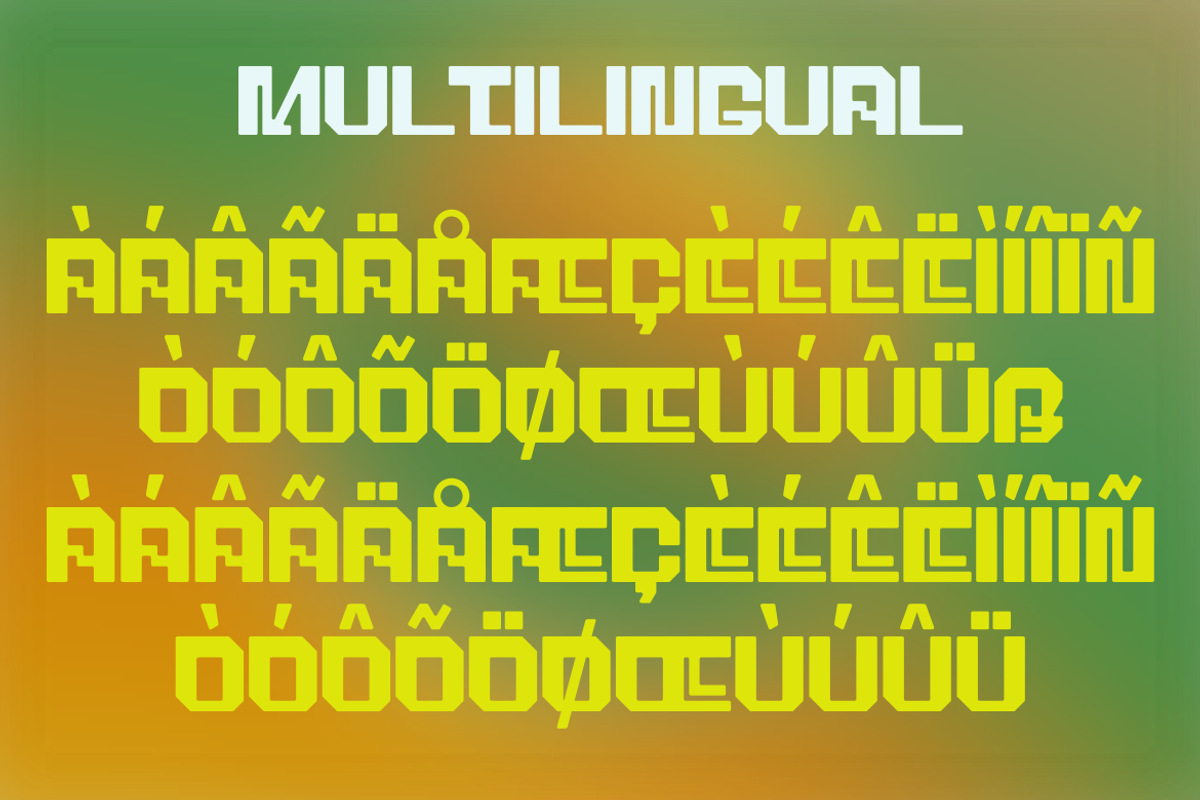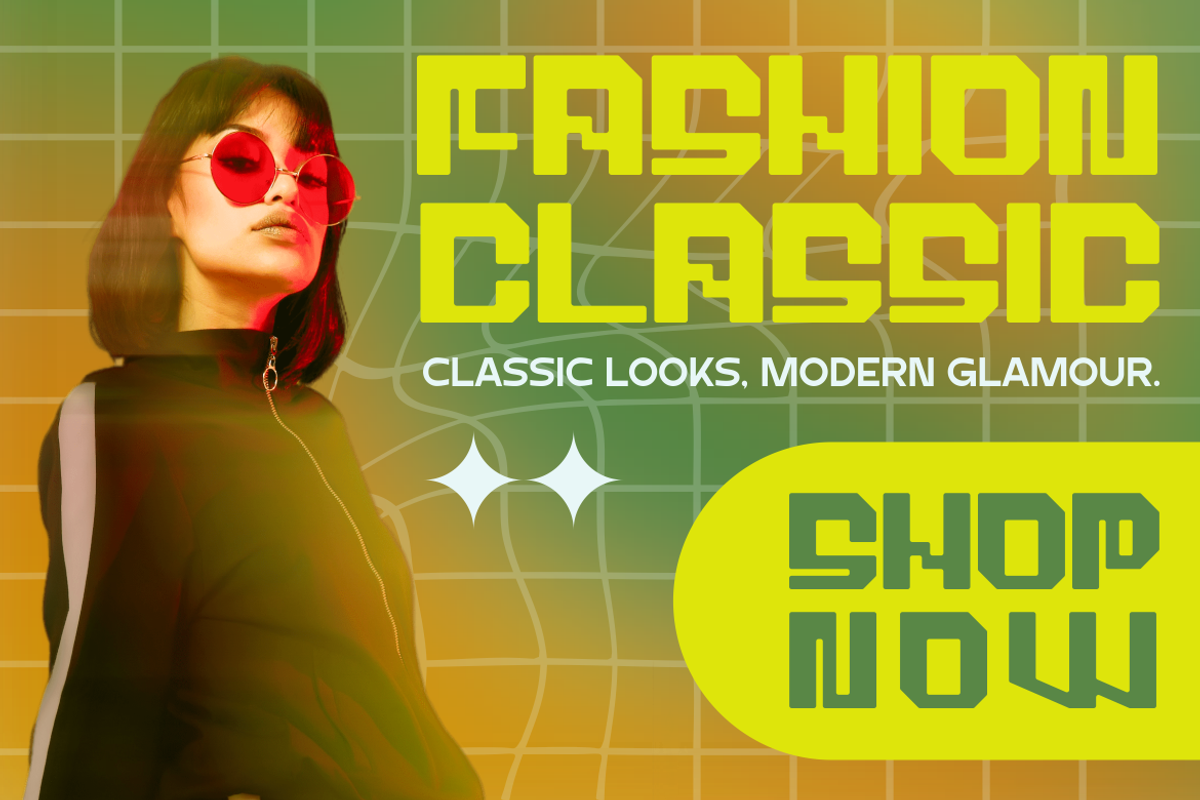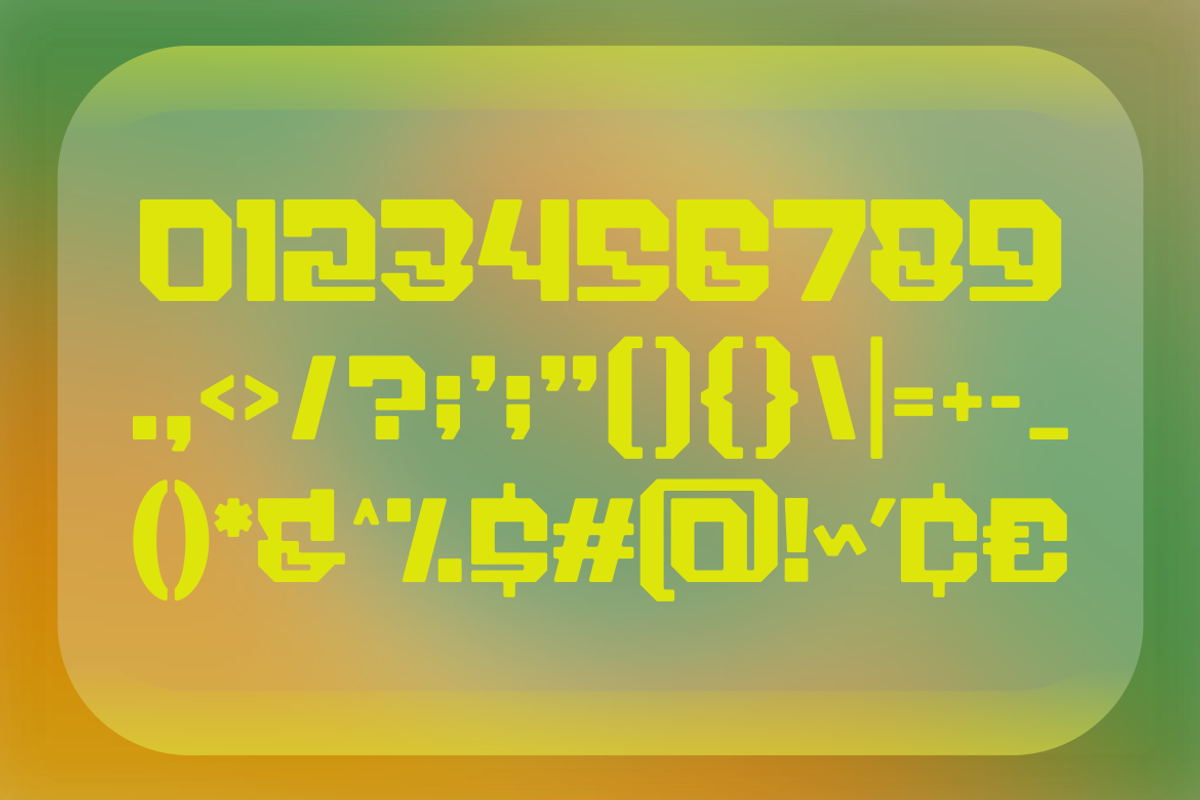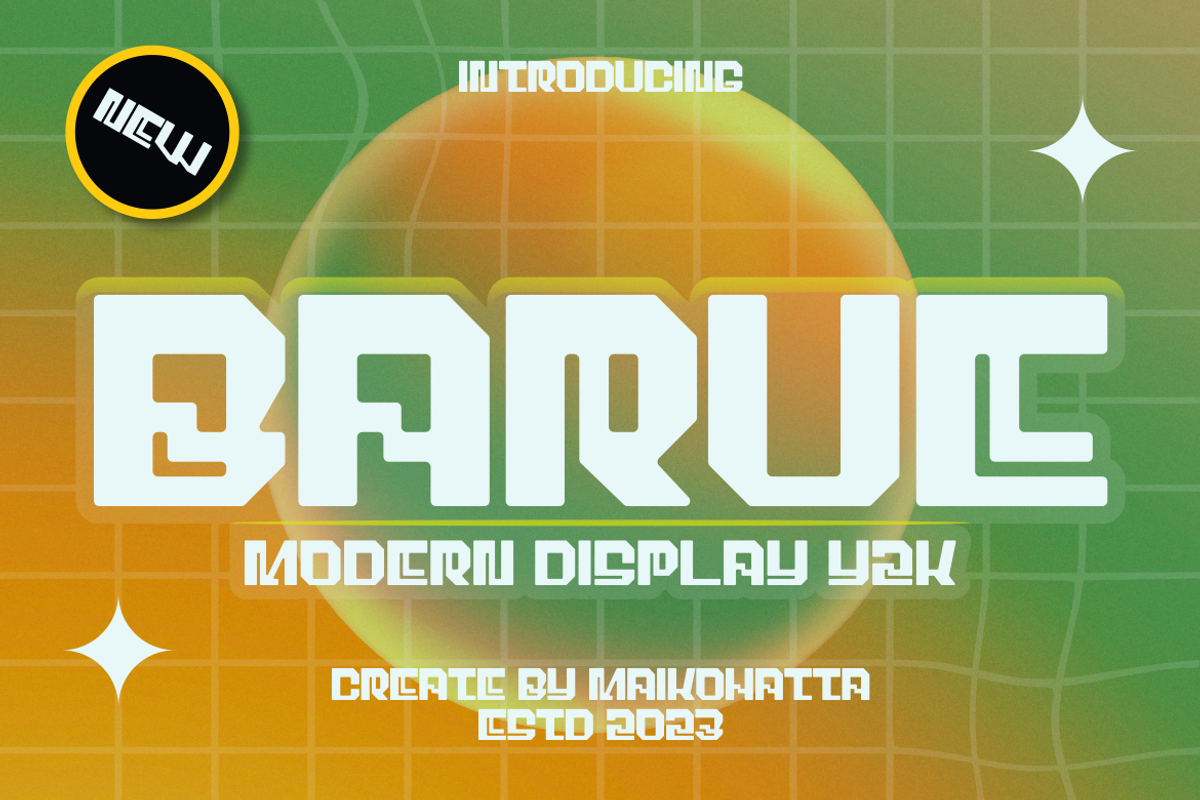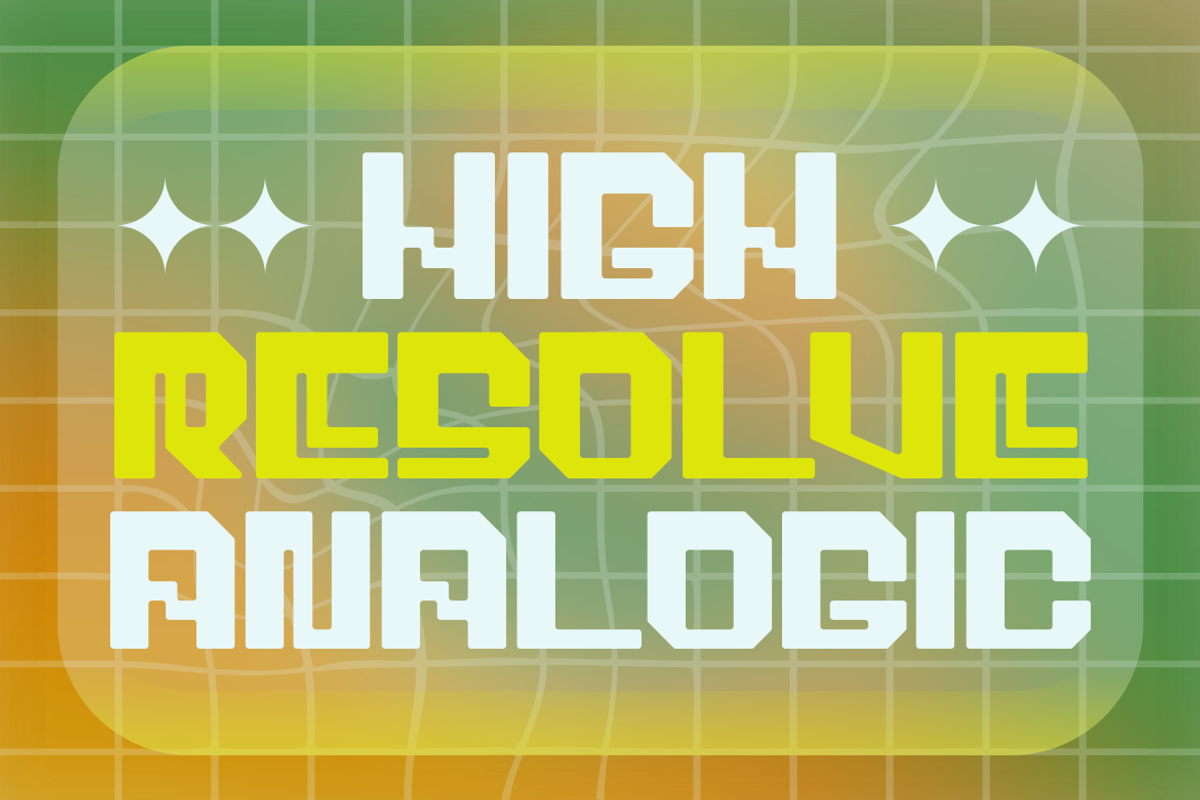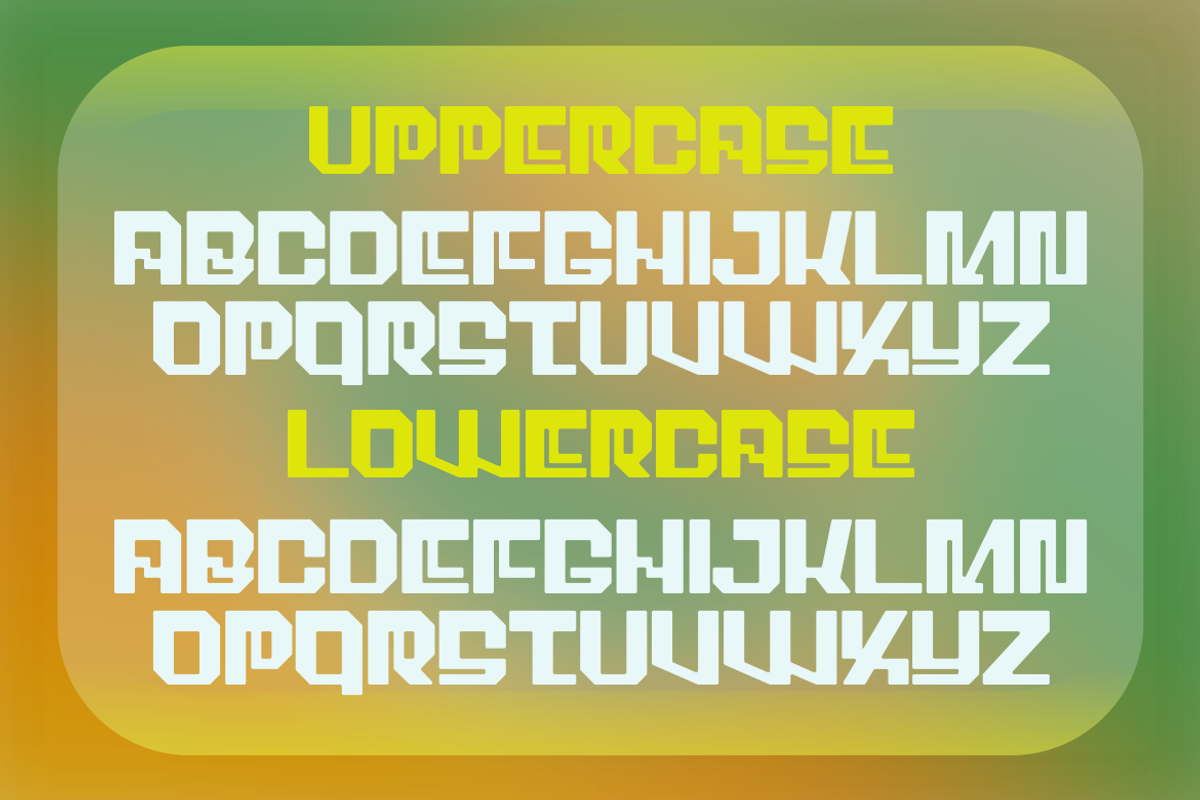
Barue - Modern Display y2k
Introducing our new product Barue - Modern Display y2k
Barue is a visual representation of the Y2K (2000) aesthetic featuring futuristic style, technology, and digital elements from the early 2000's. This font incorporates elements such as old computer displays, pixels, neon, and geometric shapes that are reminiscent of the technological developments of the time.